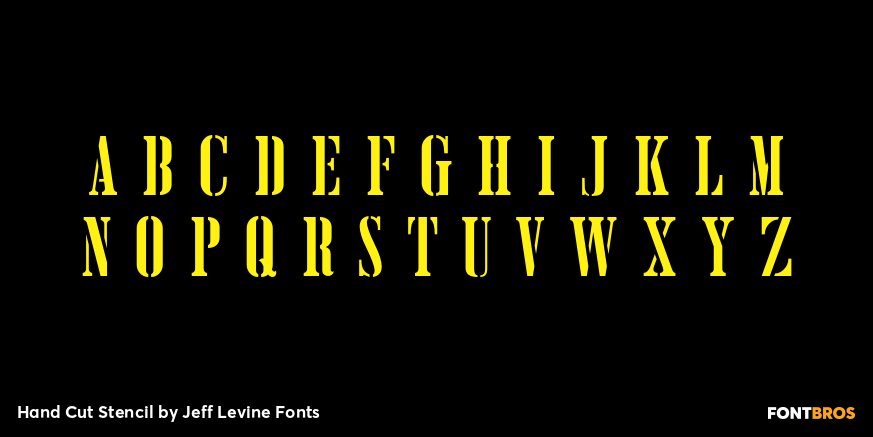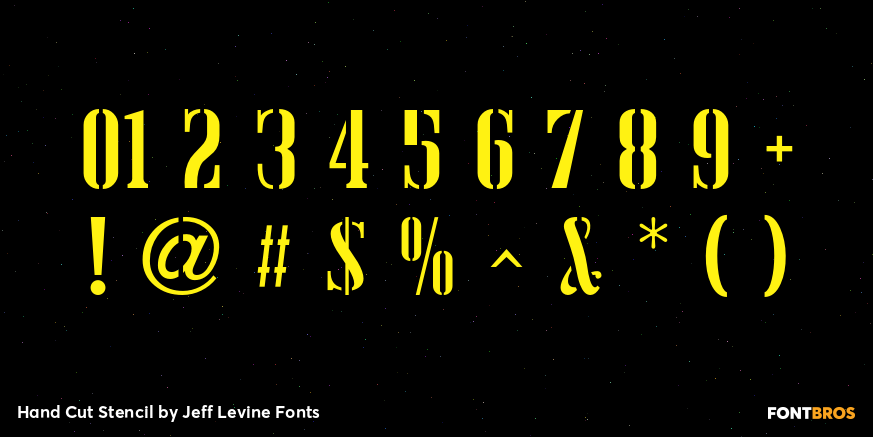
Hand Cut Stencil
Hand Cut Stencil JNL is a condensed Roman typeface modeled from an antique tin stencil hand cut for shipping merchandise.
The design is available in regular and oblique versions.